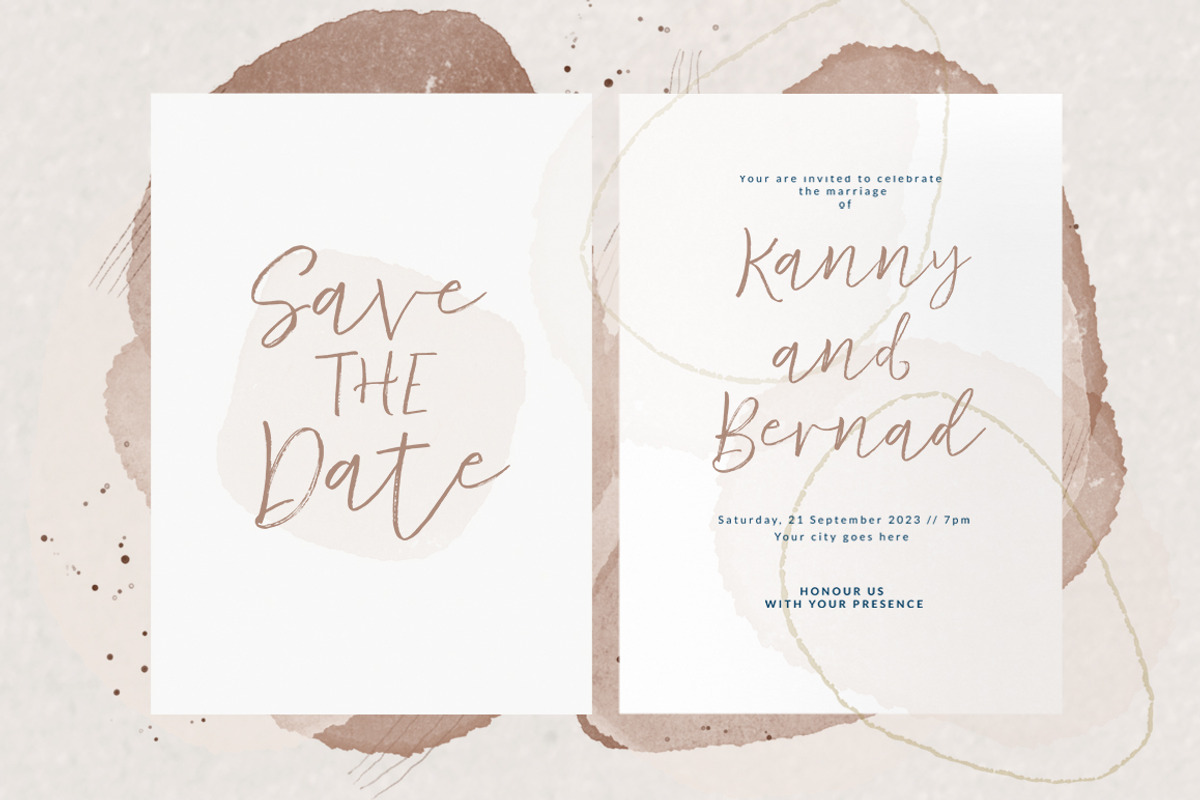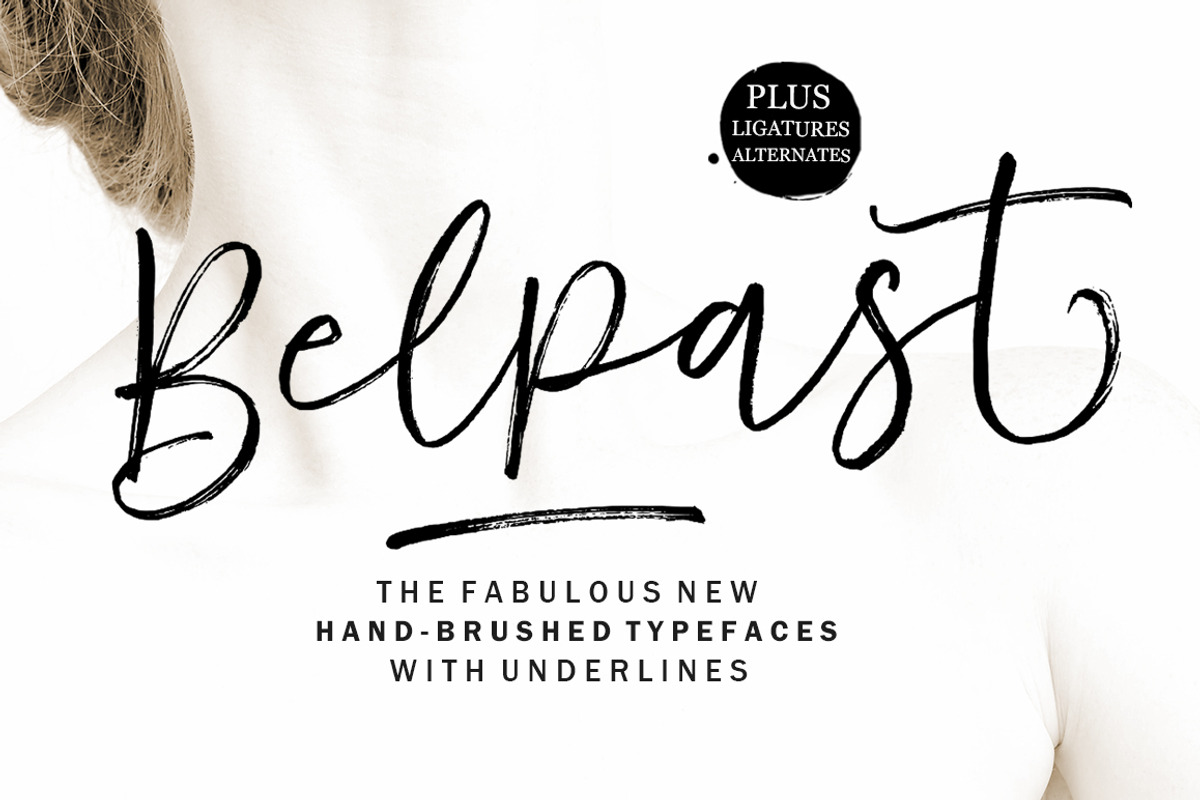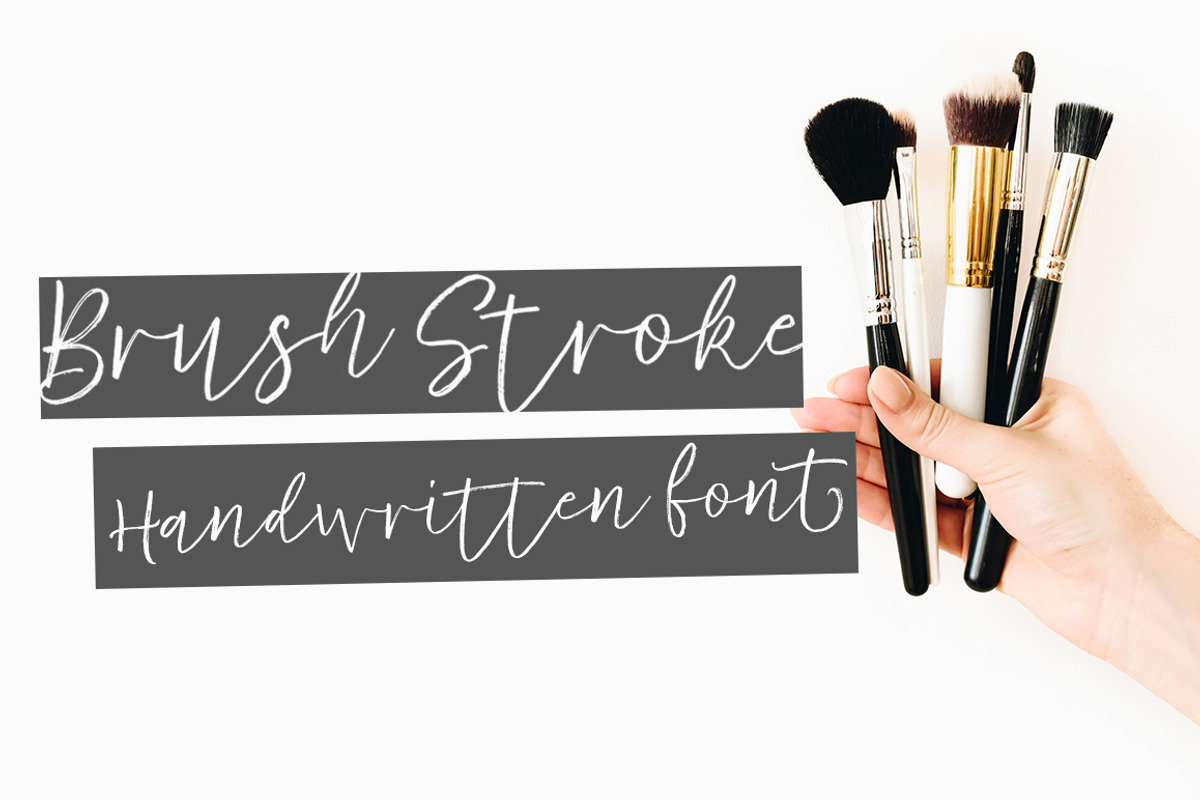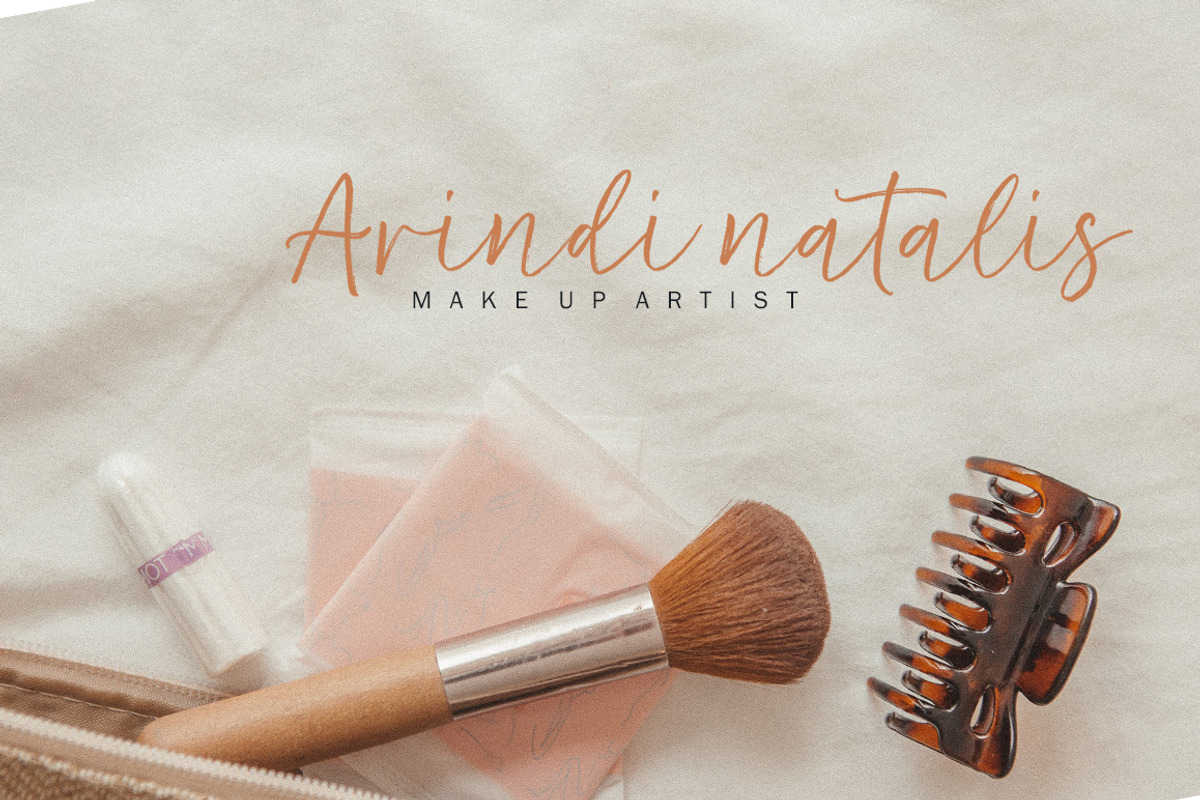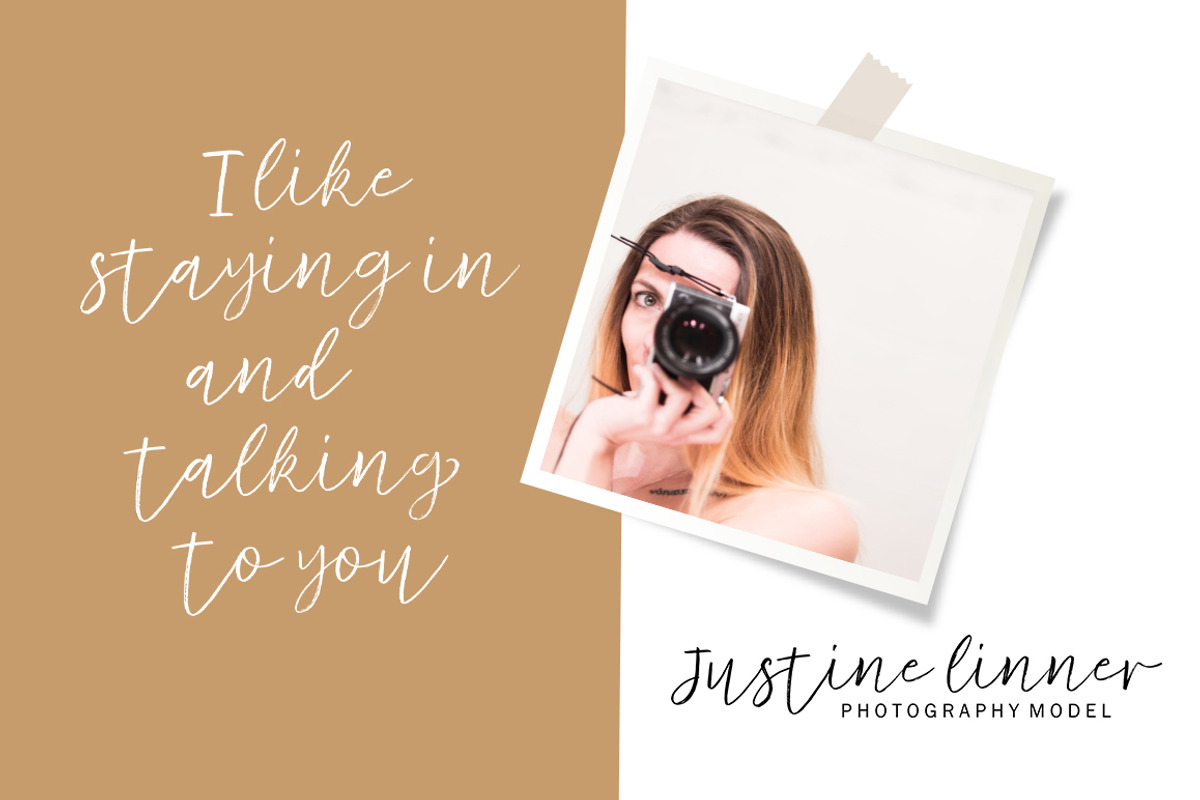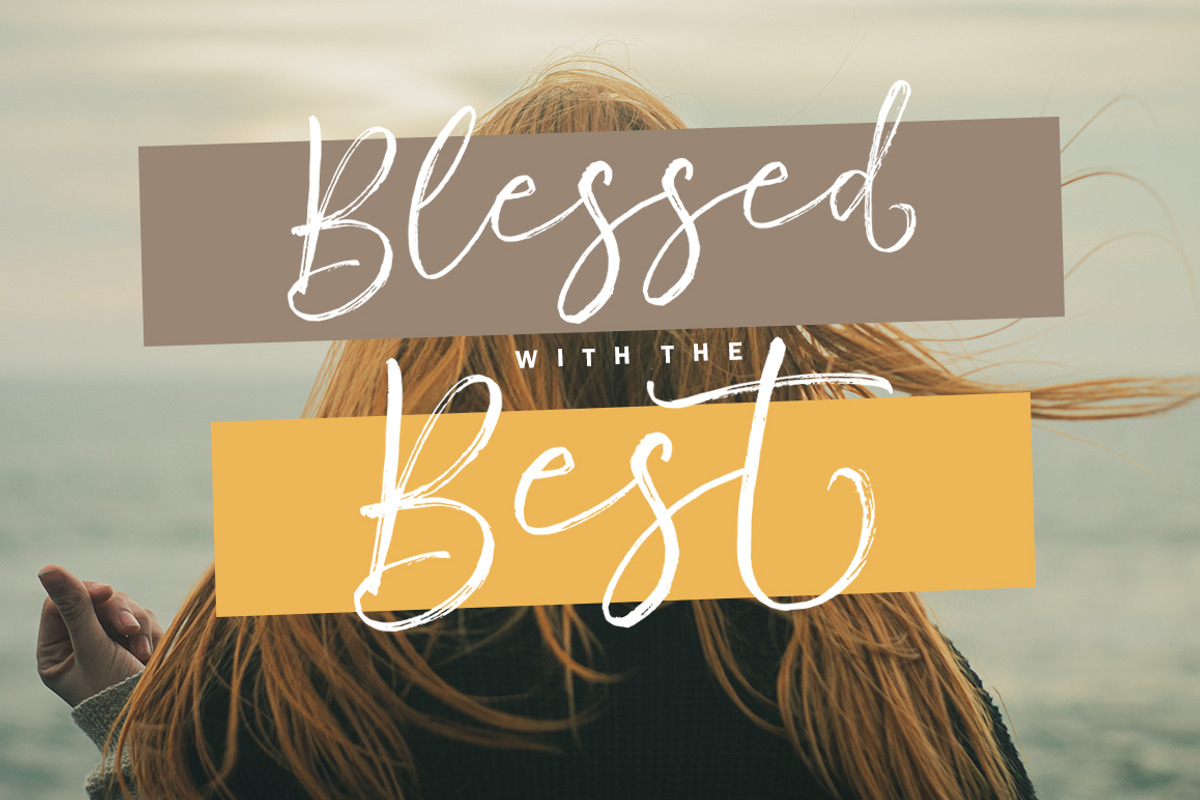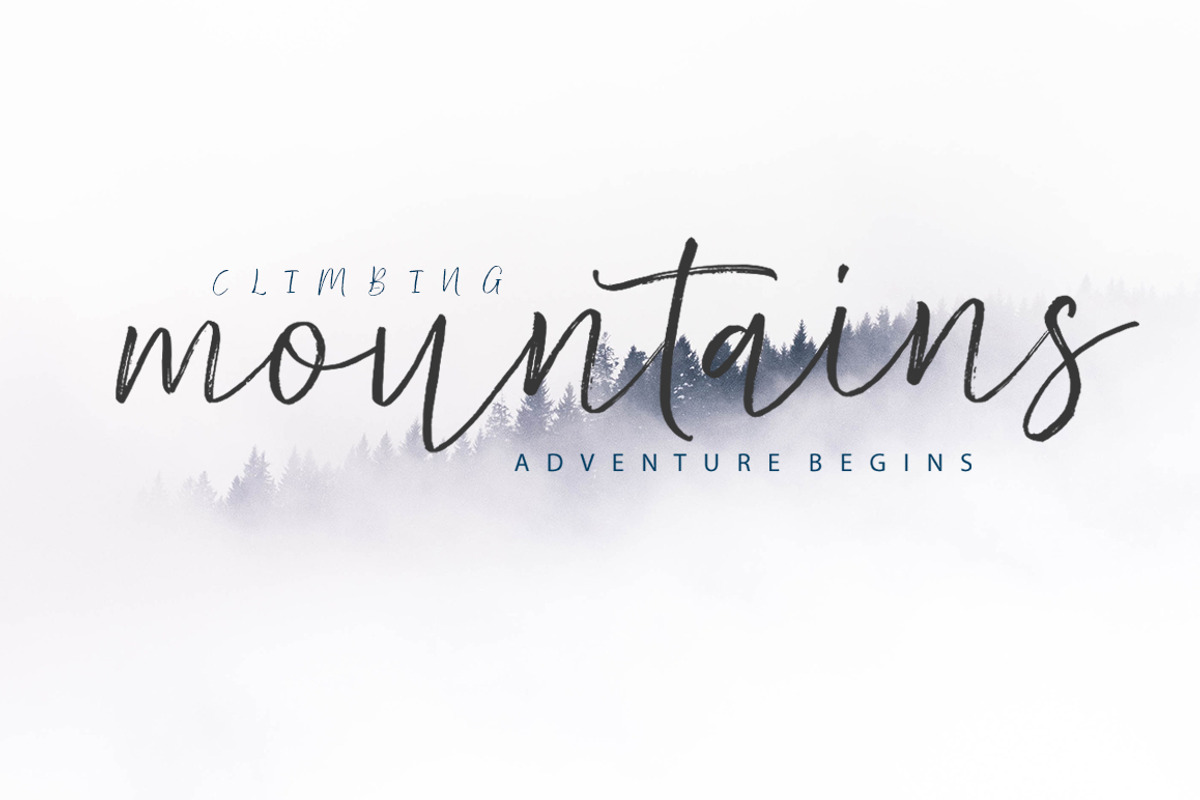
Belpast
Belpast Font is a hand brush font made with brushes and ink. This typeface is ideal for use in thick watercolor designs or handwriting styles, such as blog titles, posters, wedding elements, t-shirts, clothing, book covers, business cards, greeting cards, branding, merchandise etc.
And also Belpast Underlines, works in harmony with Belpast Font to create exceptional typographic creations. Get inspiration from the preview above.